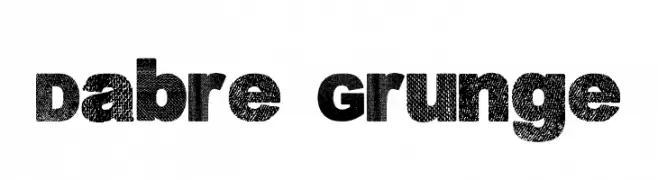
A bold, distressed font with a grunge, graffiti-inspired style.
A bold, distressed font with a grunge aesthetic and intricate patterns.
A rugged, distressed font with a gritty, urban feel.
A bold, distressed font with a grunge texture, perfect for edgy designs.